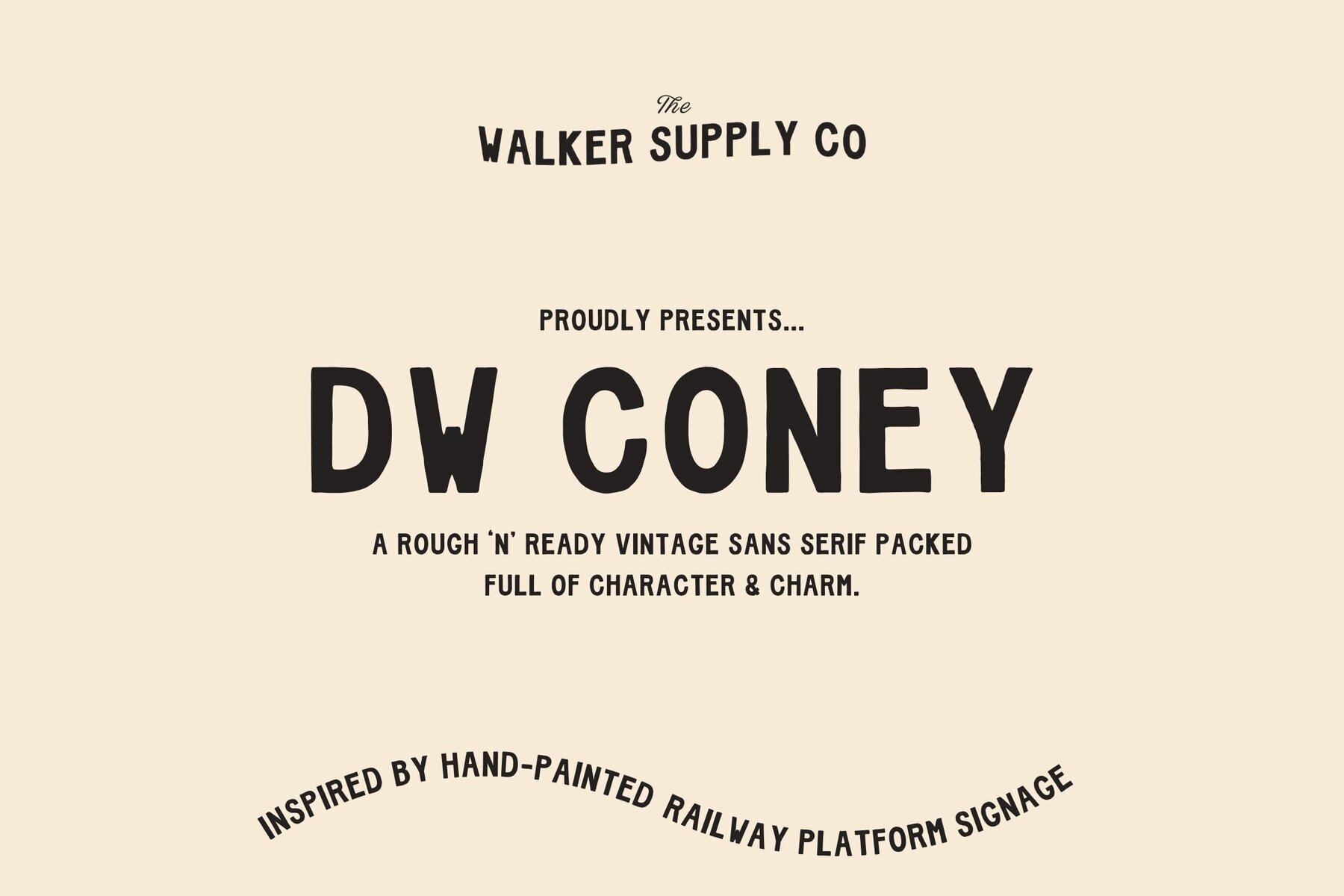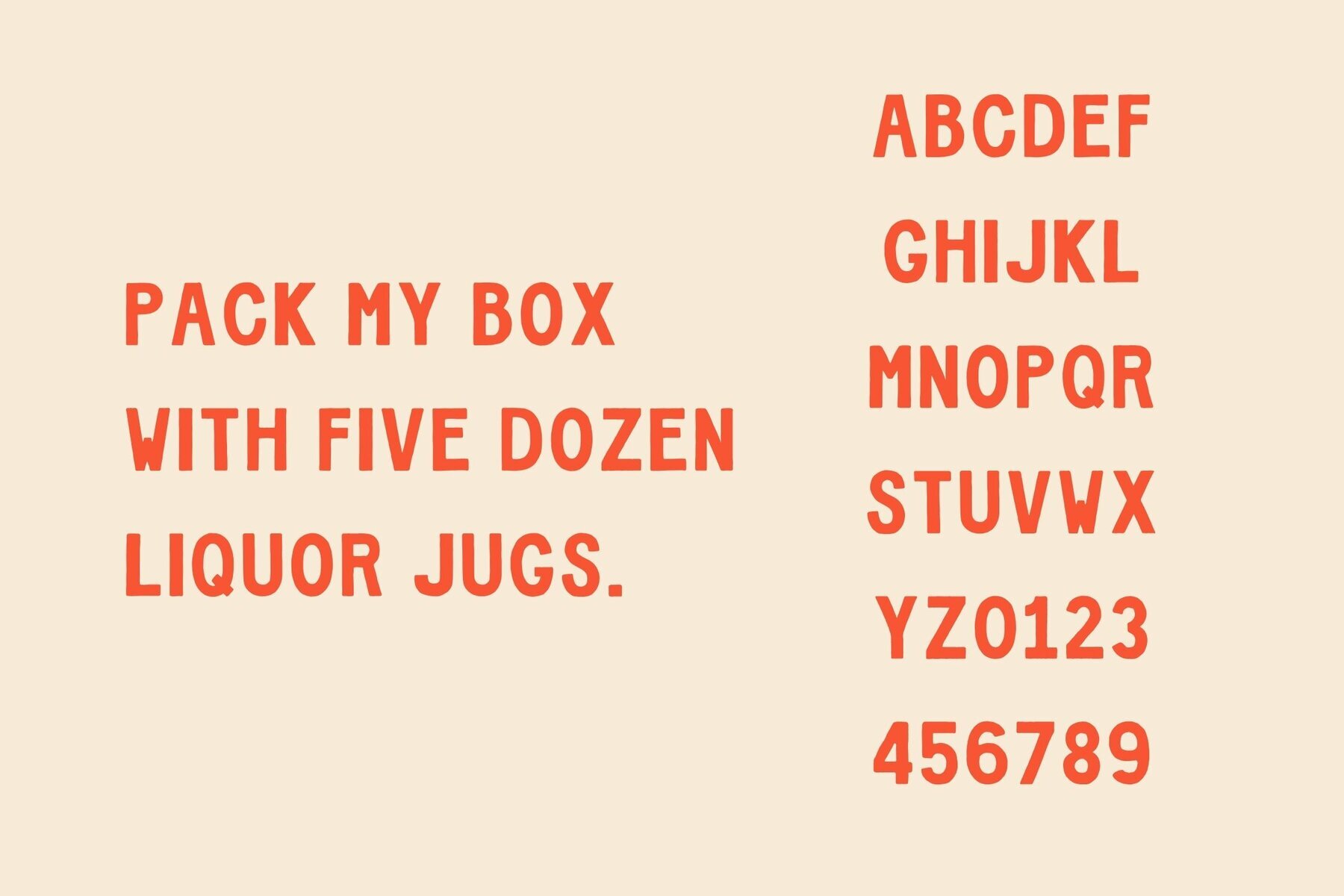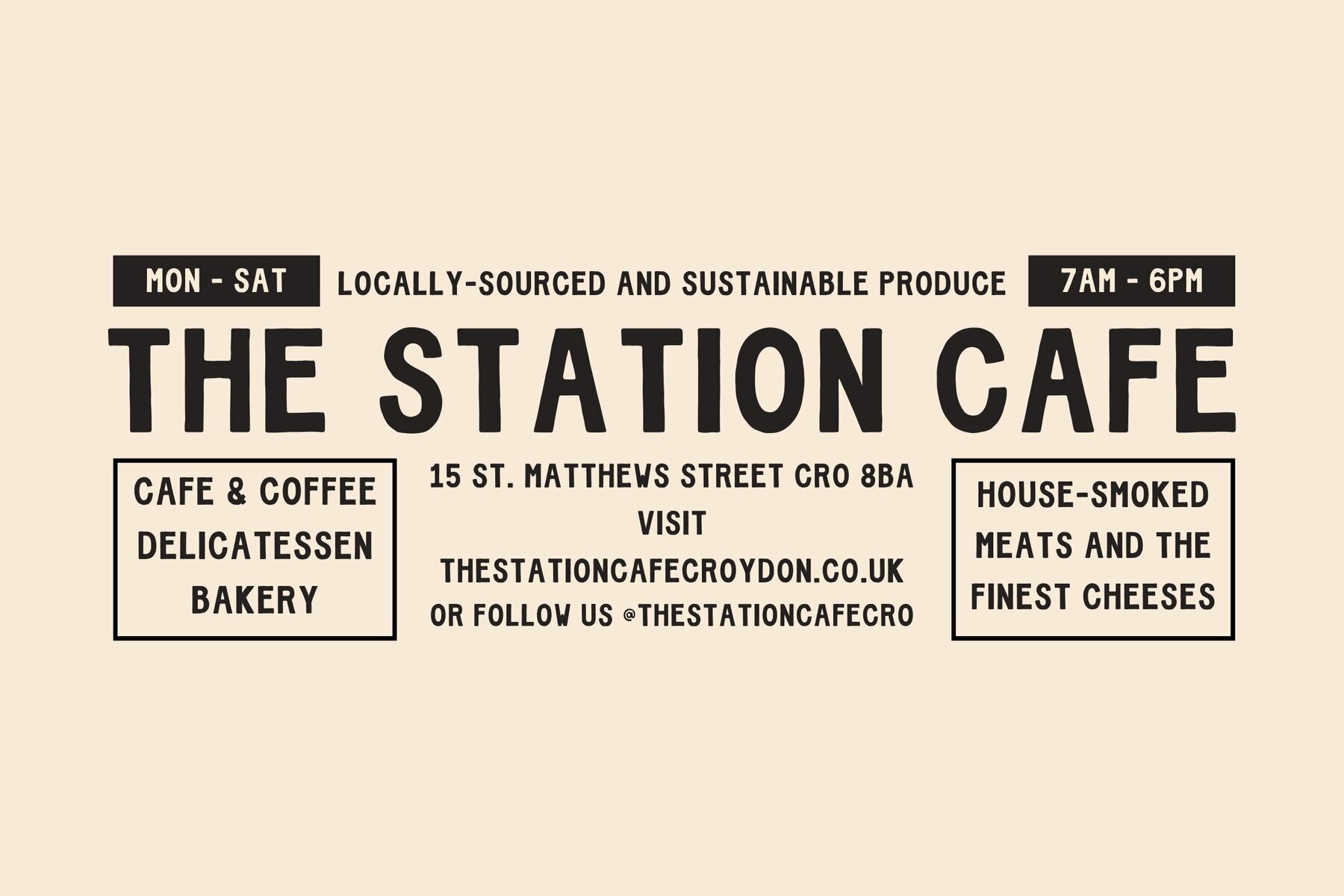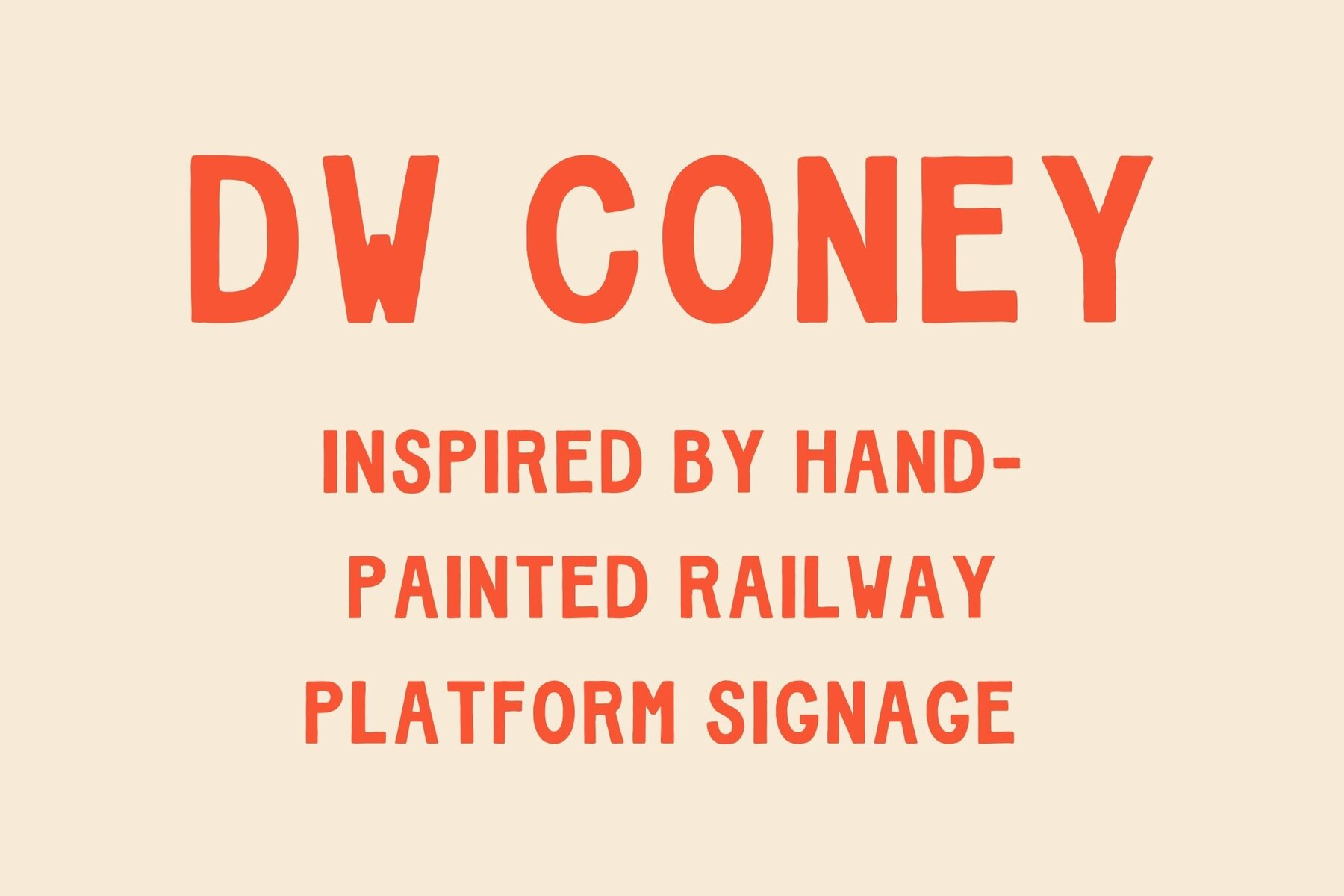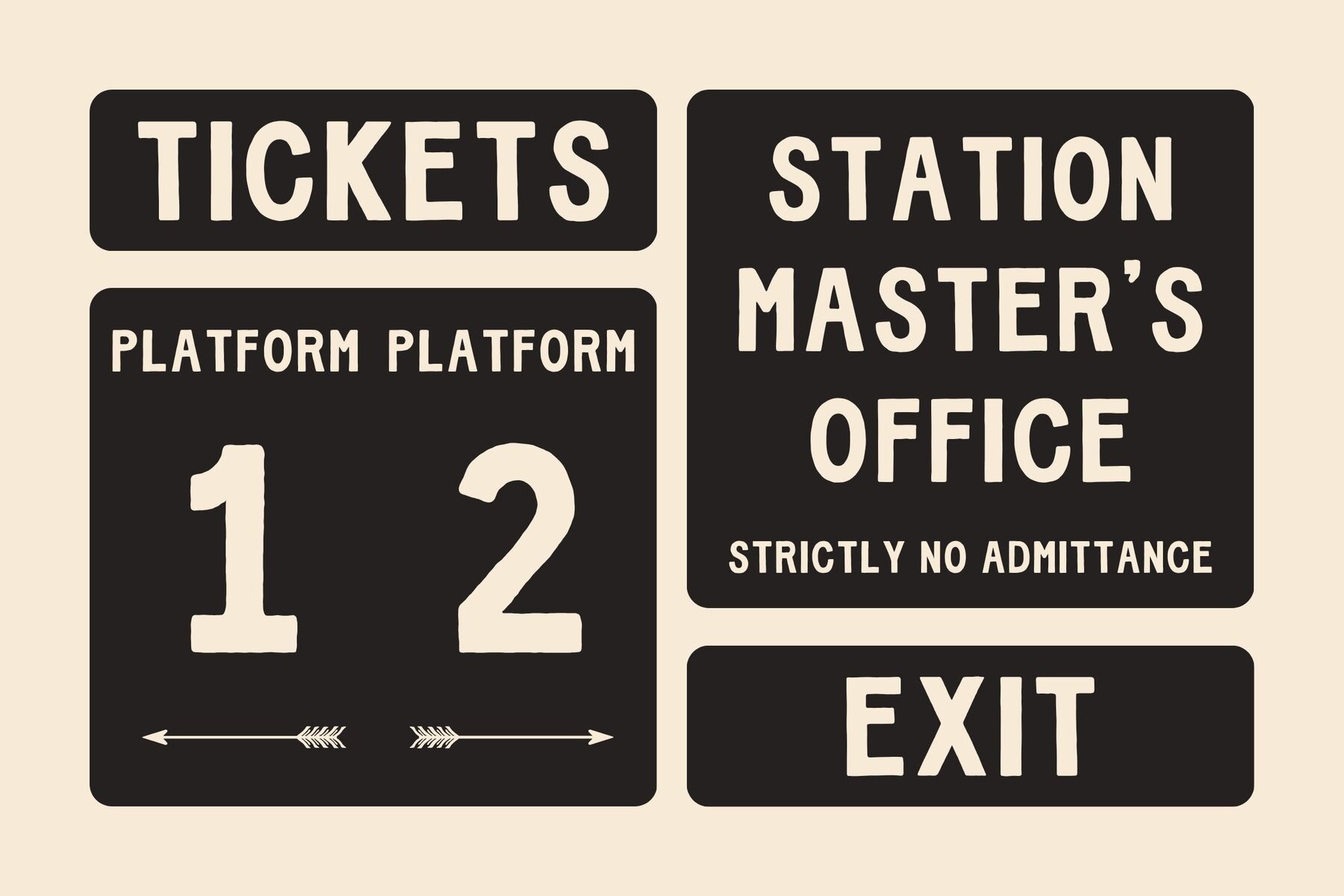
Introducing DW Coney, a Rough ‘n’ Ready, hand-drawn, sans serif typeface inspired by vintage hand-painted railway signage. It’s full of character and charm and looks great on badges, logos, posters, prints and more!